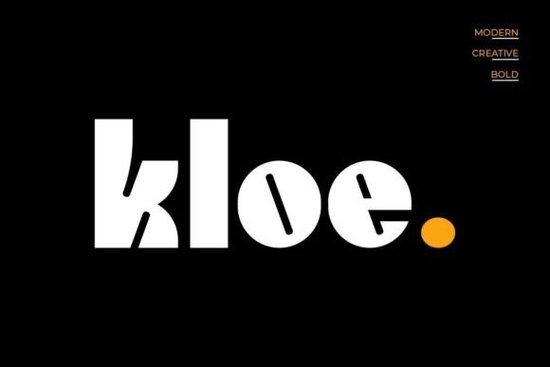
When you need a standout look for your next project, typography matters more than ever. Many creators look for Kloe Font because it fits that requirement perfectly. It offers bold character without needing complex layouts. Whether you are designing a logo for a new brand or adding text to a t-shirt, having the right typeface changes everything. This specific style brings confidence to your work immediately.
The design is built around clean lines and balanced proportions. You won't find messy edges or overly decorative flourishes here. Instead, the focus is on solid letterforms that catch the eye. This makes it an ideal choice when readability needs to remain high even at larger sizes. People remember strong visuals, and this typeface helps communicate your message clearly.
Why bold typefaces work for small businesses
Selling physical products often requires grabbing attention quickly. Shoppers scroll through dozens of images before stopping. That is why a heavy weight on headlines or product packaging helps. You can build trust faster when your text feels grounded and secure. This approach suits print-on-demand sellers who want their merchandise to feel premium.
Beyond clothing, consider how it looks on digital assets. Social media banners benefit from the thick strokes because they render well on smaller screens. A clean design reduces visual noise, letting your content breathe. Small business owners appreciate getting a professional finish without hiring an expensive graphic designer.
Finding alternatives that share the same energy
Taking these moments saves revisions later. Quality typography takes effort, but the result speaks for itself. With a sturdy base like this one, you can experiment freely while maintaining professionalism. Your audience notices the details, so give your brand the best foundation possible.